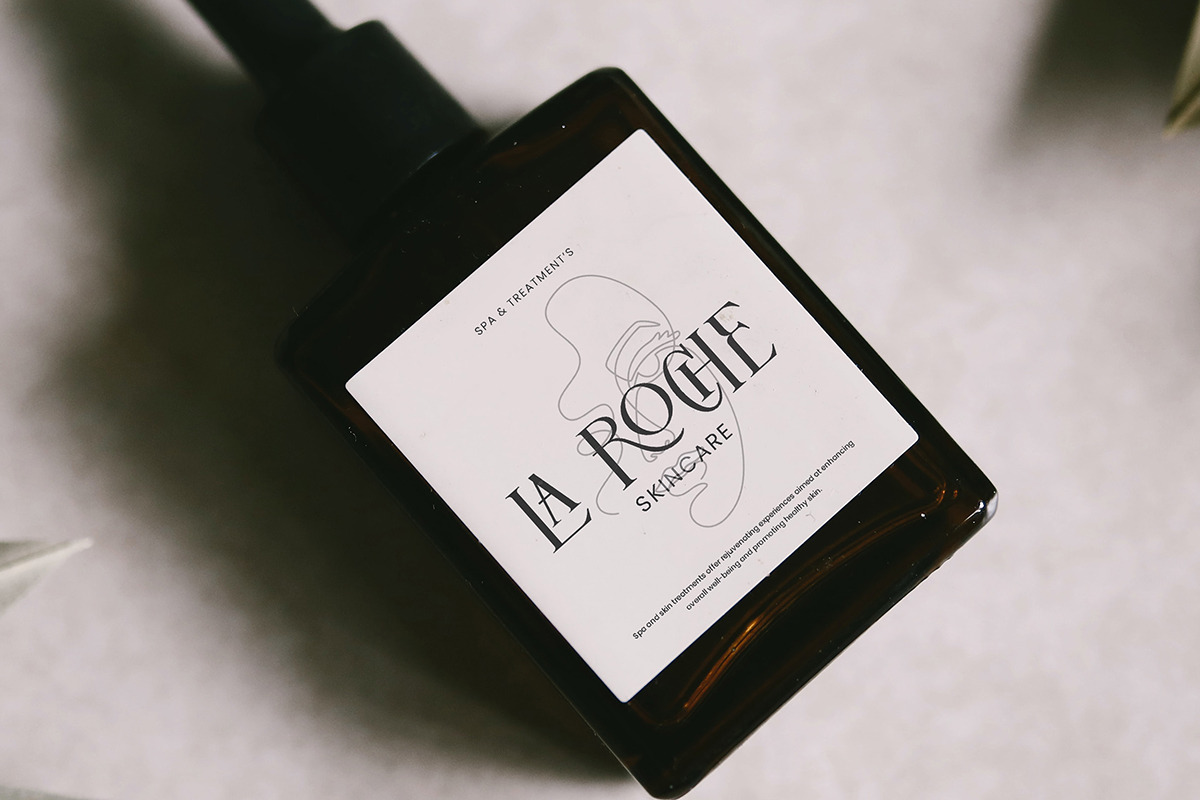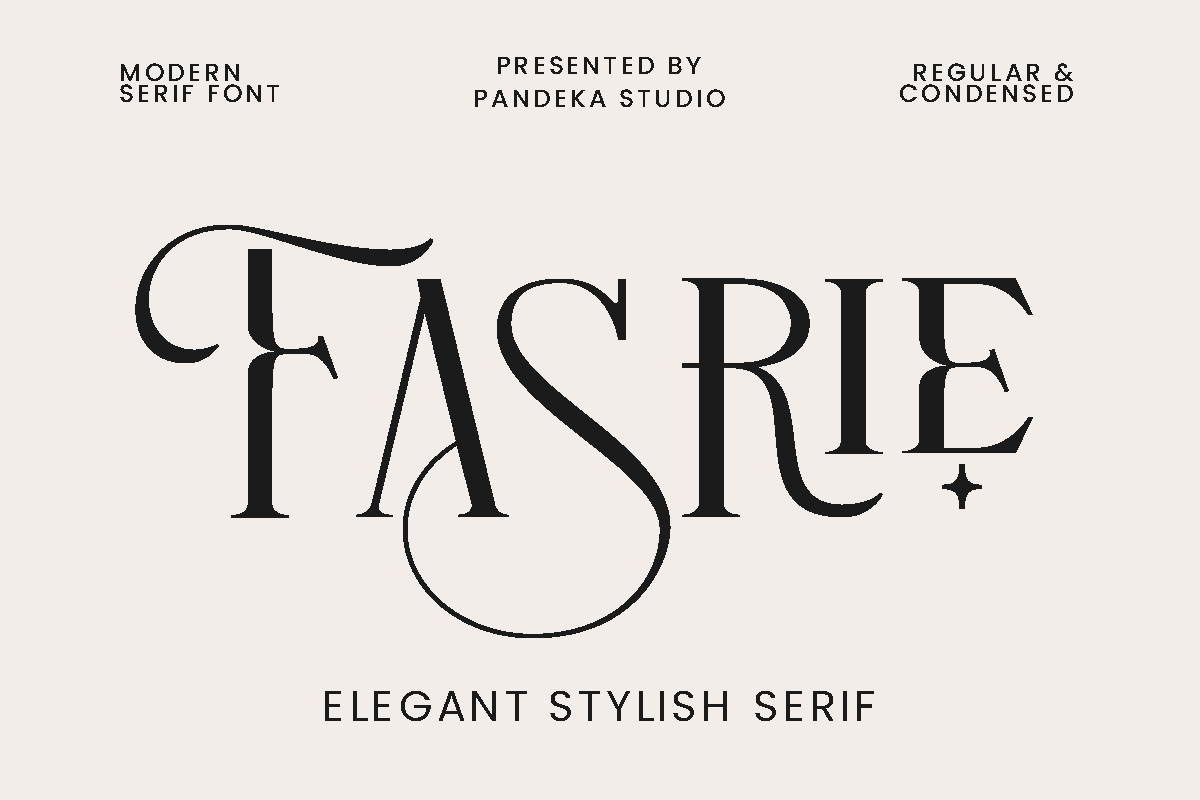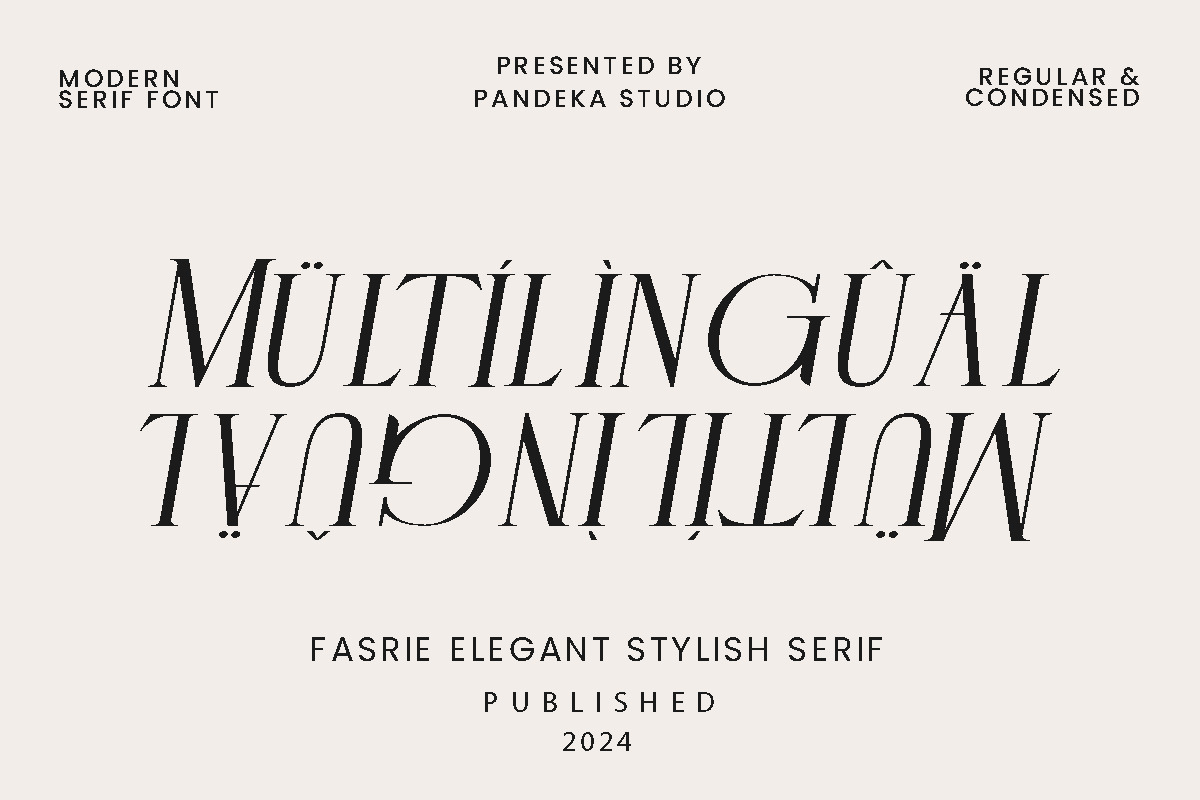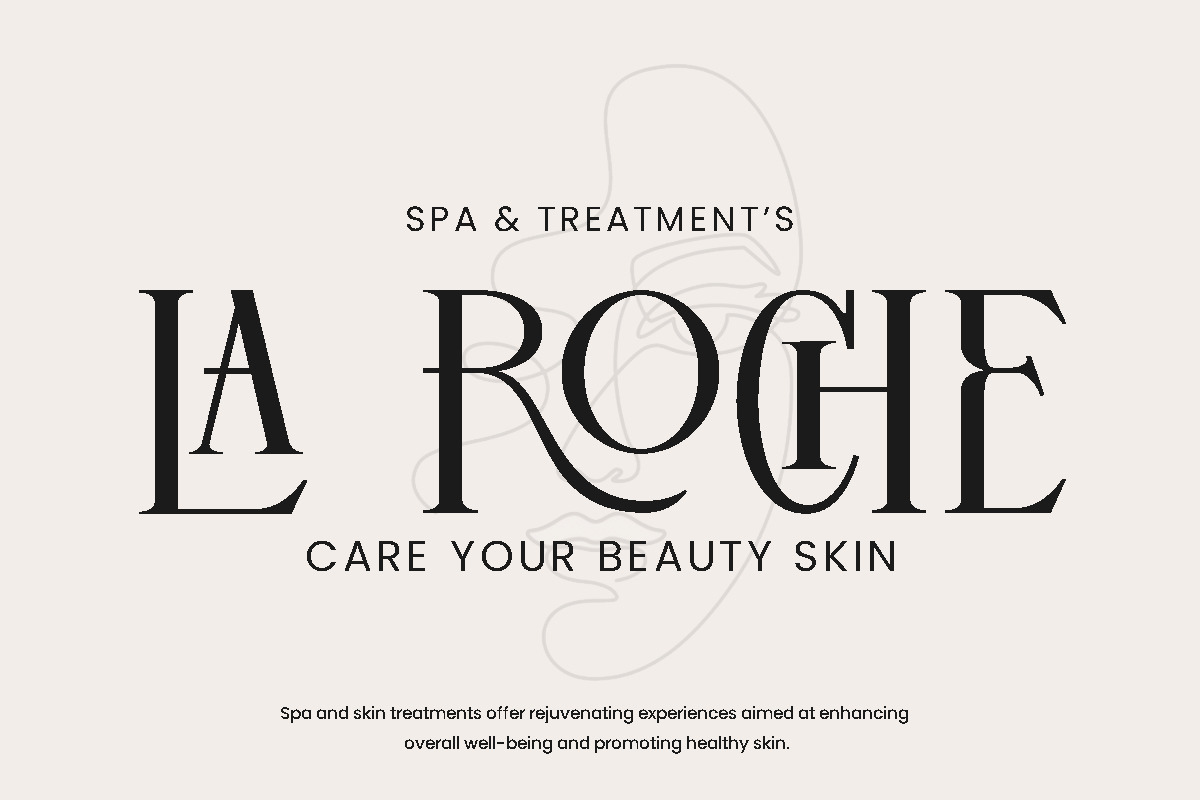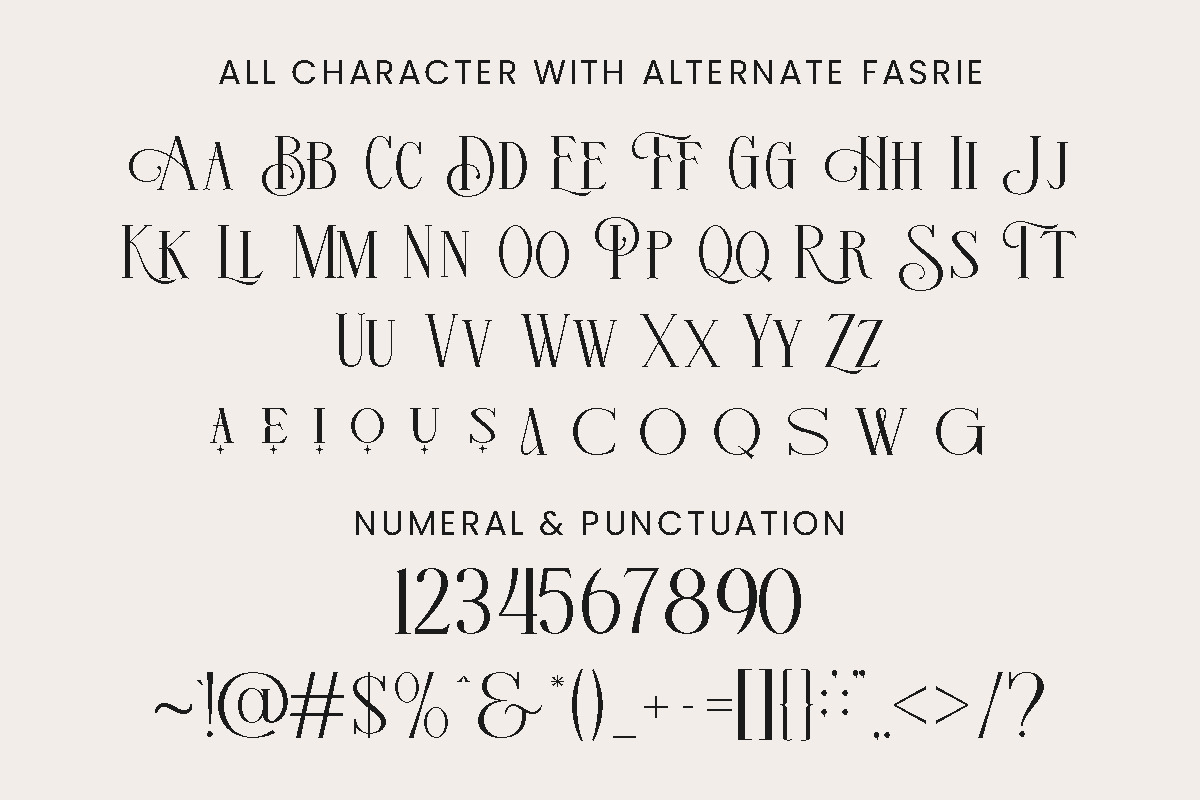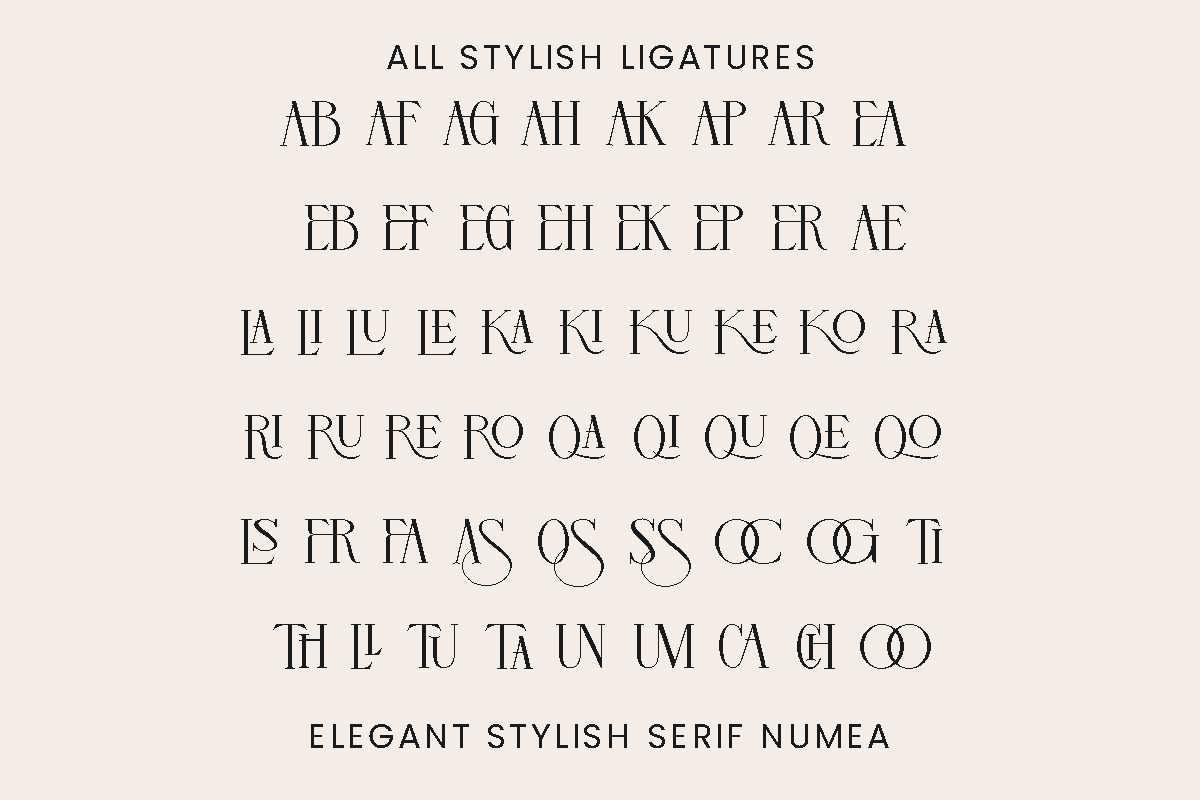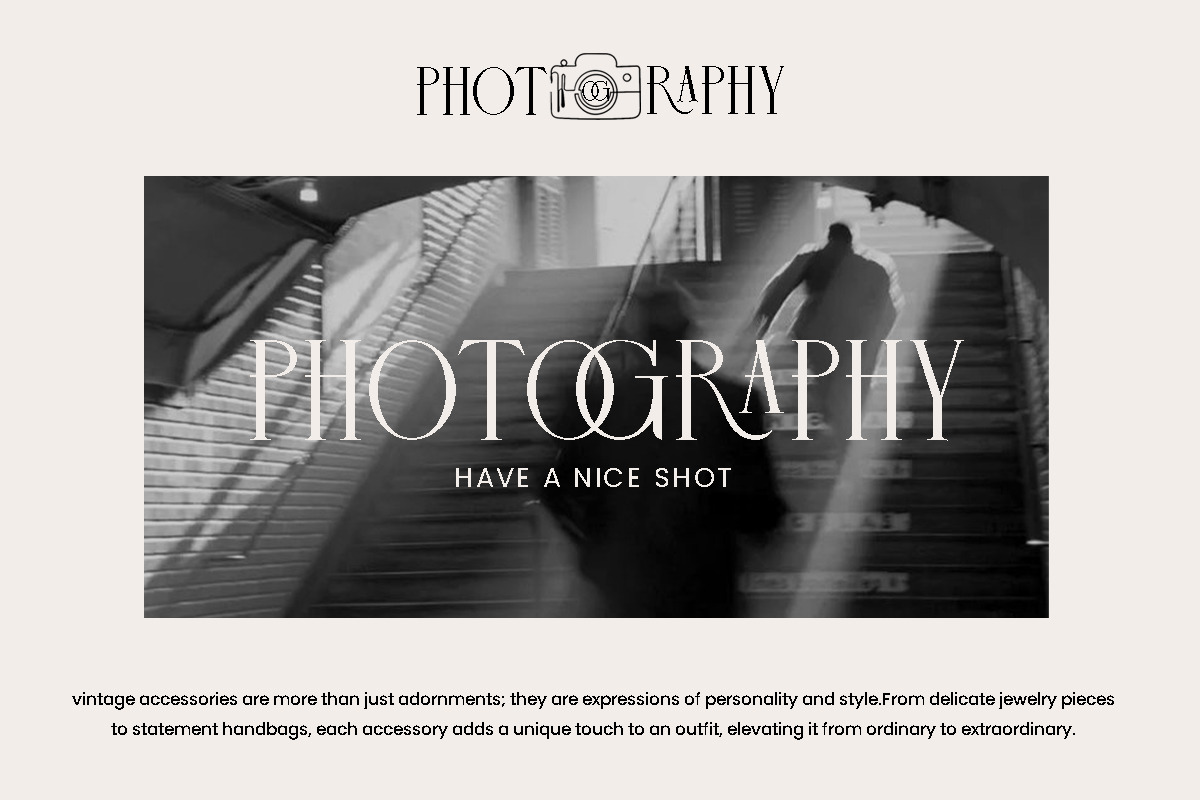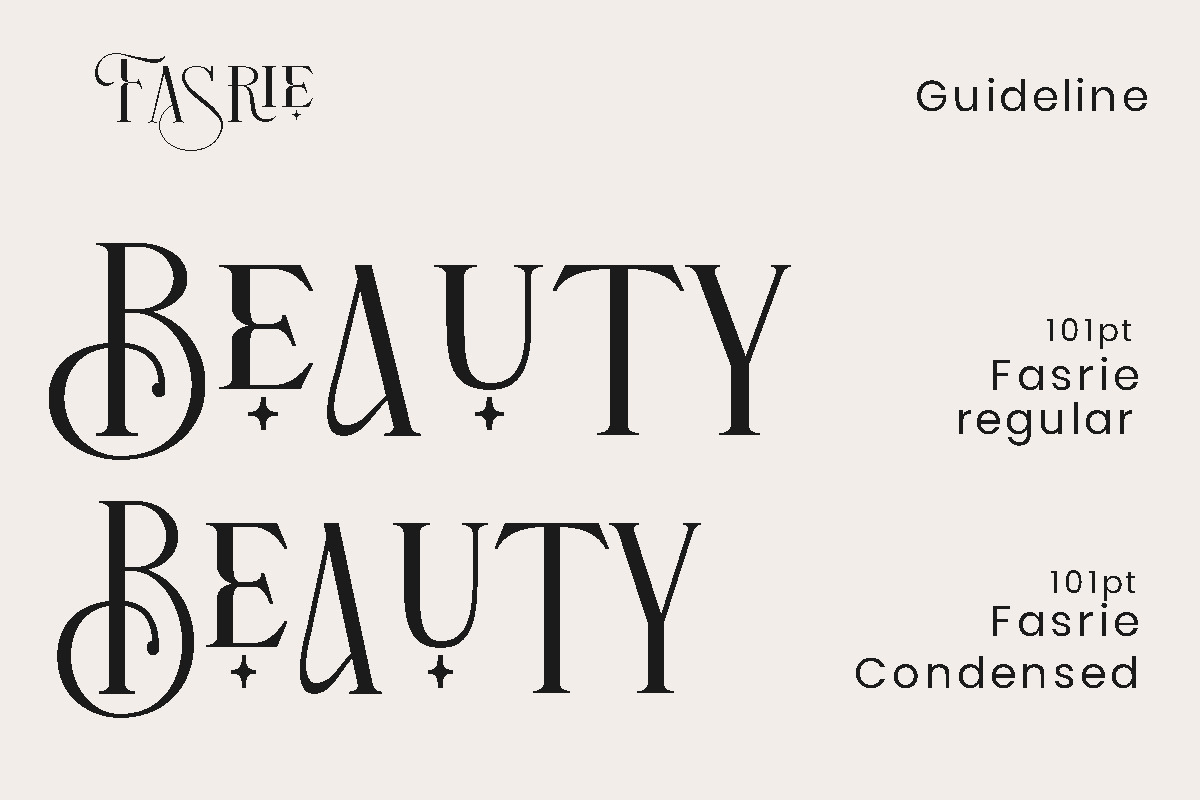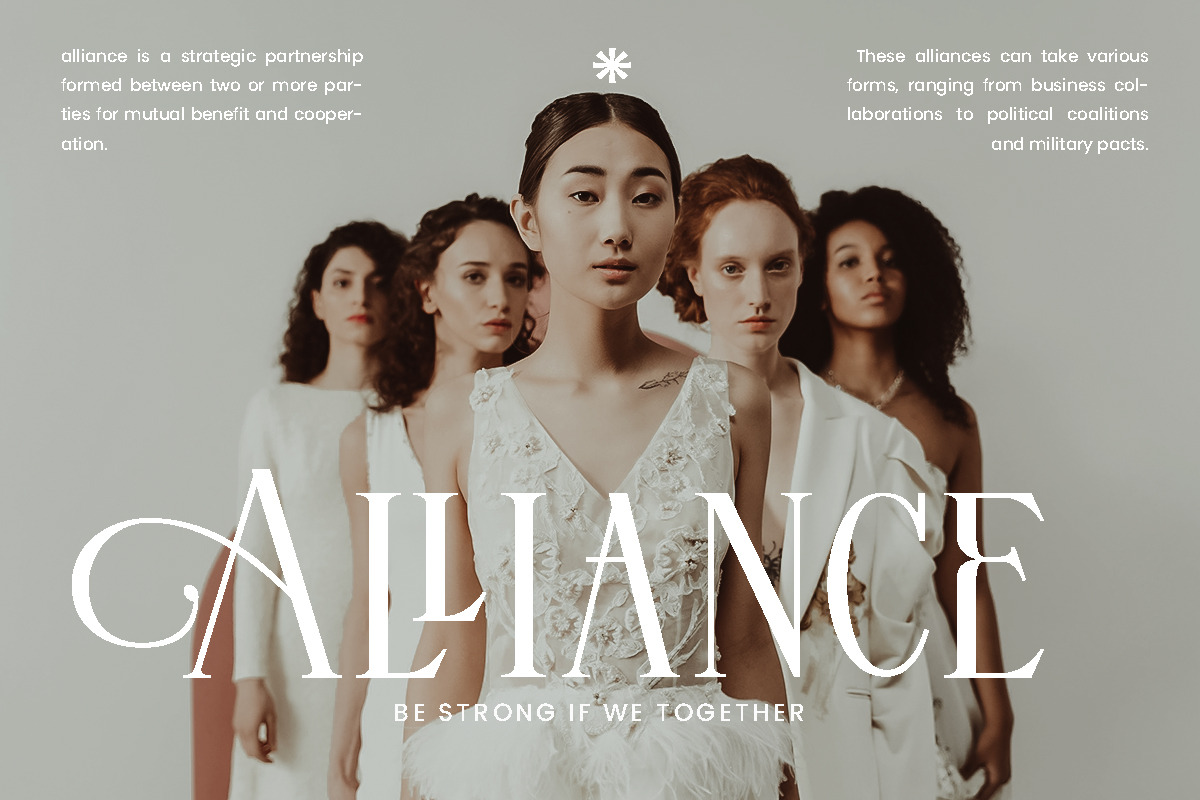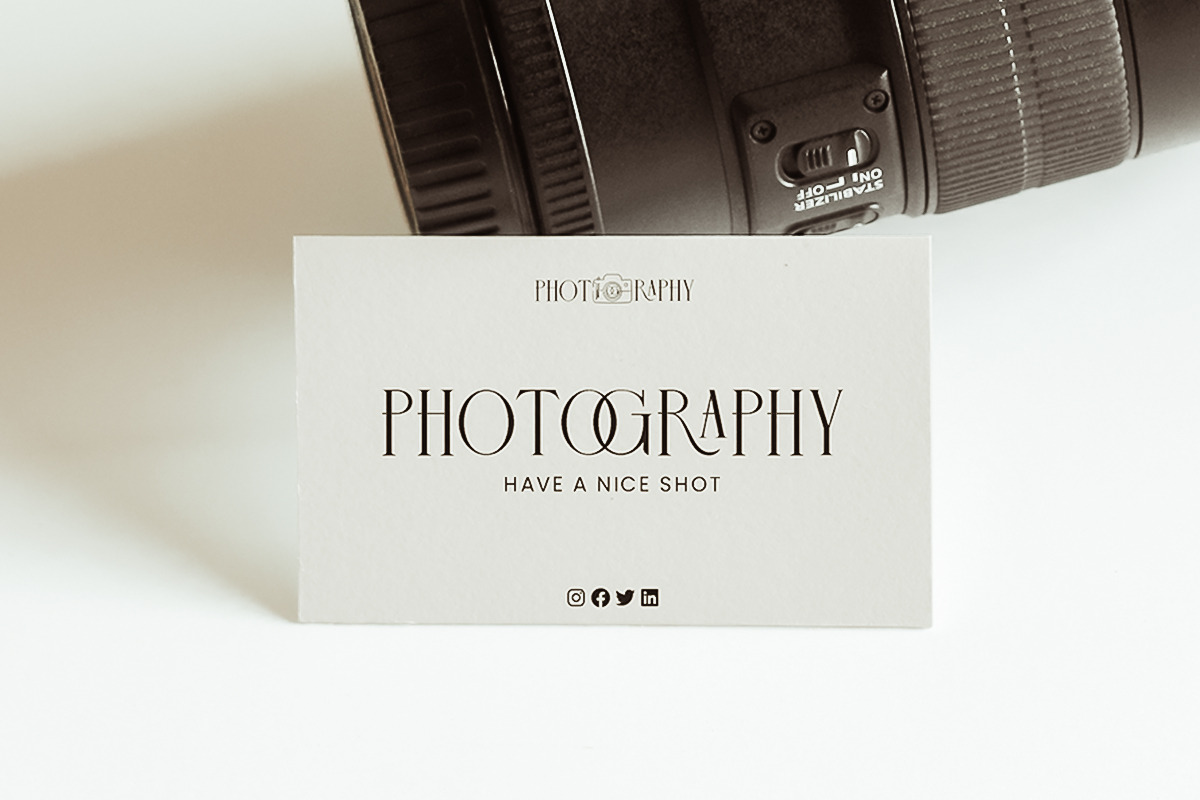
Fasrie - Ligature Serif Font
Introducing the new Fasrie Ligature Serif!
Fasrie is a modern, elegant and classy serif typeface, best used as a display for headings, logos, branding, magazines, product packaging and invitations. Fasrie come with clean lines and smooth curves give any project an extra touch of class.
Fasrie was built with OpenType features and includes ligatures, alternate, numbers, punctuation, and it also supports other languages. This font have Regular and Condensed style
- Regular and Condensed Style
- Unique Stylistic Alternates